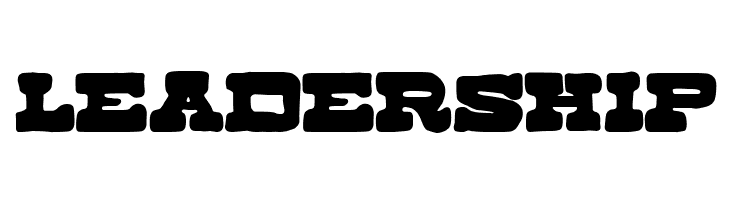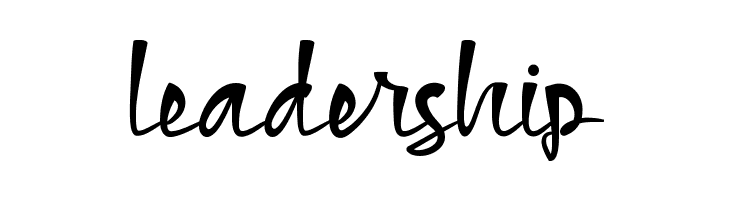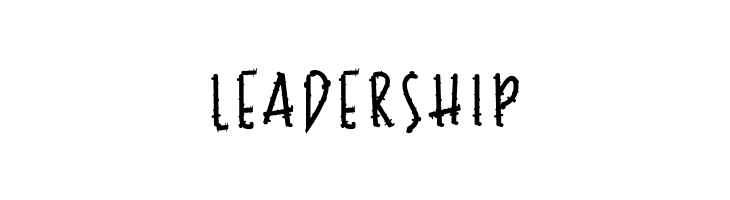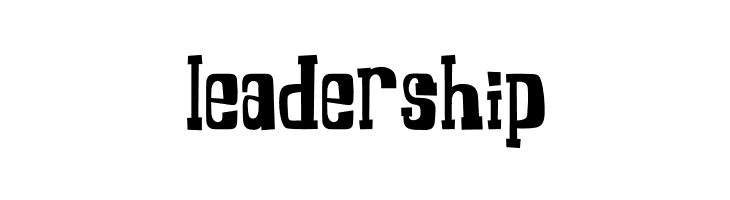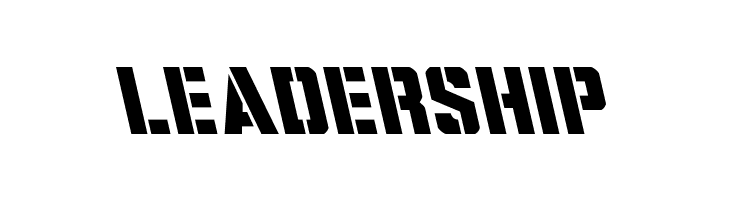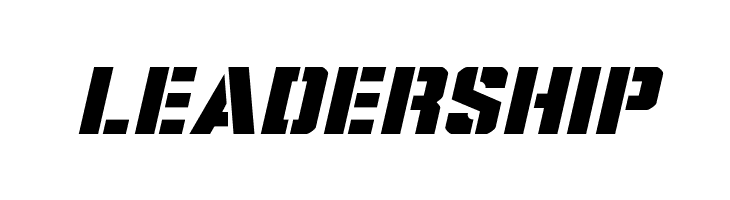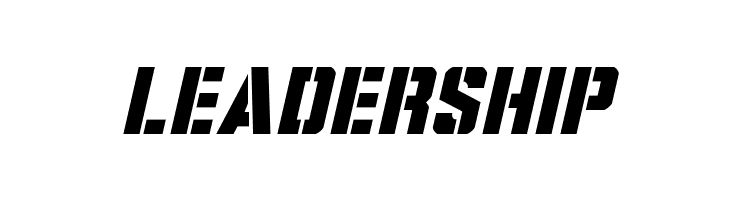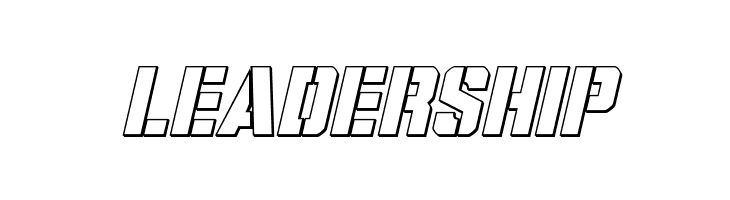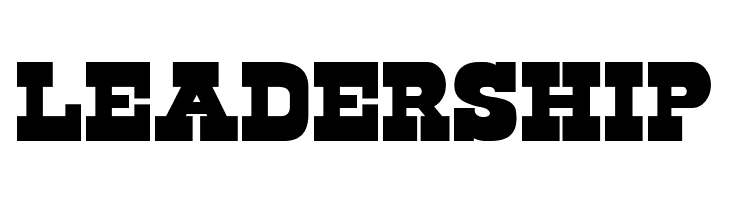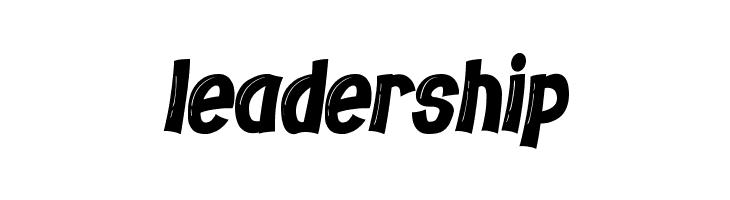
A playful, handwritten font with rounded, uniform strokes and a casual feel.
A bold, playful font with rounded edges and a hand-drawn feel.
A bold, playful font with bottle-like shapes and a whimsical style.
A bold, futuristic font with geometric and rounded forms.
A geometric, angular font with a modern and technical appearance.
A bold, modern font with thick strokes and a strong visual impact.
A bold, condensed font with strong, impactful strokes.
A playful, handwritten font with a whimsical and casual style.
A bold, modern sans-serif font with clean geometric shapes.
A playful, bold script font with a fluid, handwritten style.
A bold, angular font with a dynamic, modern style.
A modern, clean sans-serif font with smooth curves and uniform strokes.
A flowing, cursive font with elegant, interconnected letters.
A flowing, cursive script font with elegant, interconnected characters.
A bold, geometric font with angular shapes and a modern, industrial feel.
A bold, condensed font with a modern, industrial look.
A bold, condensed, and italicized font with a modern, dynamic style.
A bold, italic, and geometric font with a dynamic and energetic style.
A bold, angular font with a dynamic and edgy style.
A bold, angular, and dynamic font with a modern, edgy style.
A bold, italicized font with sharp angles and dynamic energy.
A bold, italic font with sharp angles and high contrast, perfect for dynamic designs.
A bold, geometric font with a futuristic and modern aesthetic.
A bold, futuristic font with a geometric and tech-inspired design.
A bold, geometric font with a futuristic, industrial style.
A bold, angular, and futuristic font with a slanted orientation.
Hand-drawn food and kitchen icon dingbat font.
A modern, geometric font with bold, clean lines and uniform structure.
A bold, hand-drawn font with irregular edges and a playful, energetic style.
A bold, rustic font with a hand-crafted, Western-inspired style.
A decorative font featuring detailed illustrations of rural life elements.
A bold, decorative font with a vintage flair and subtle serifs.
A bold, modern font with geometric shapes and sharp angles.